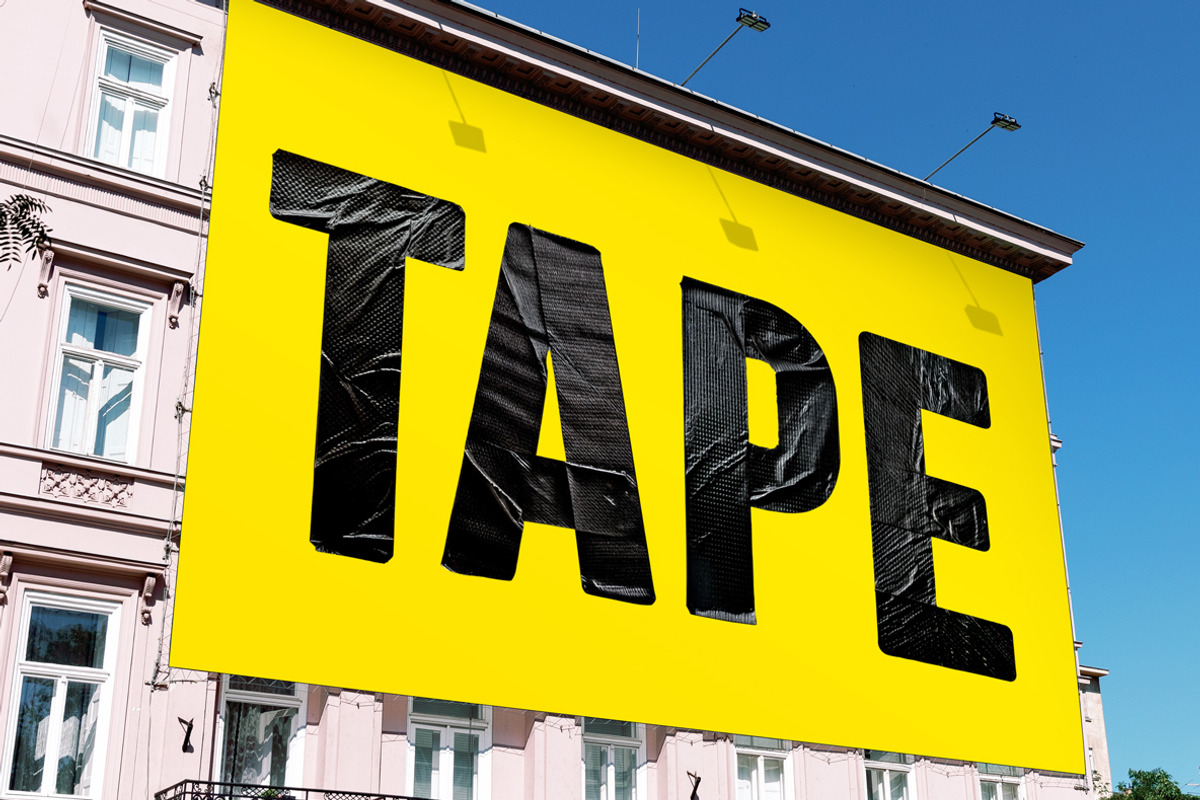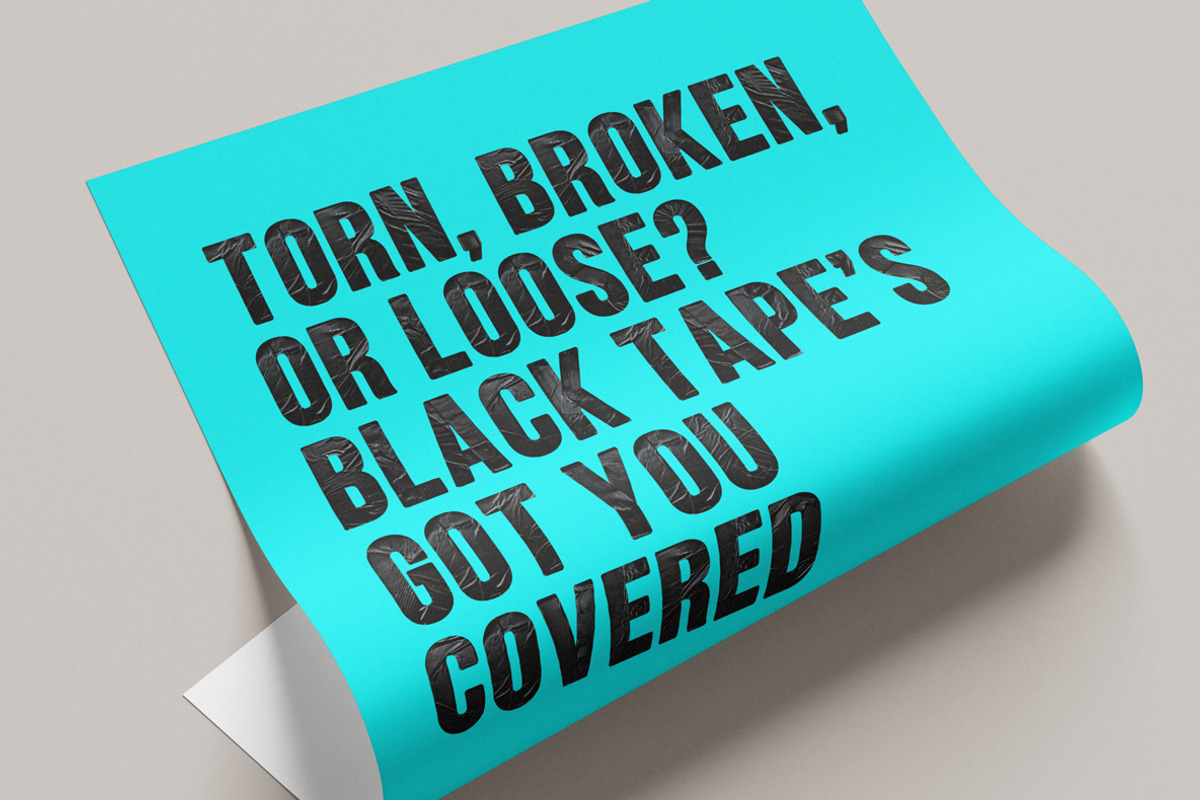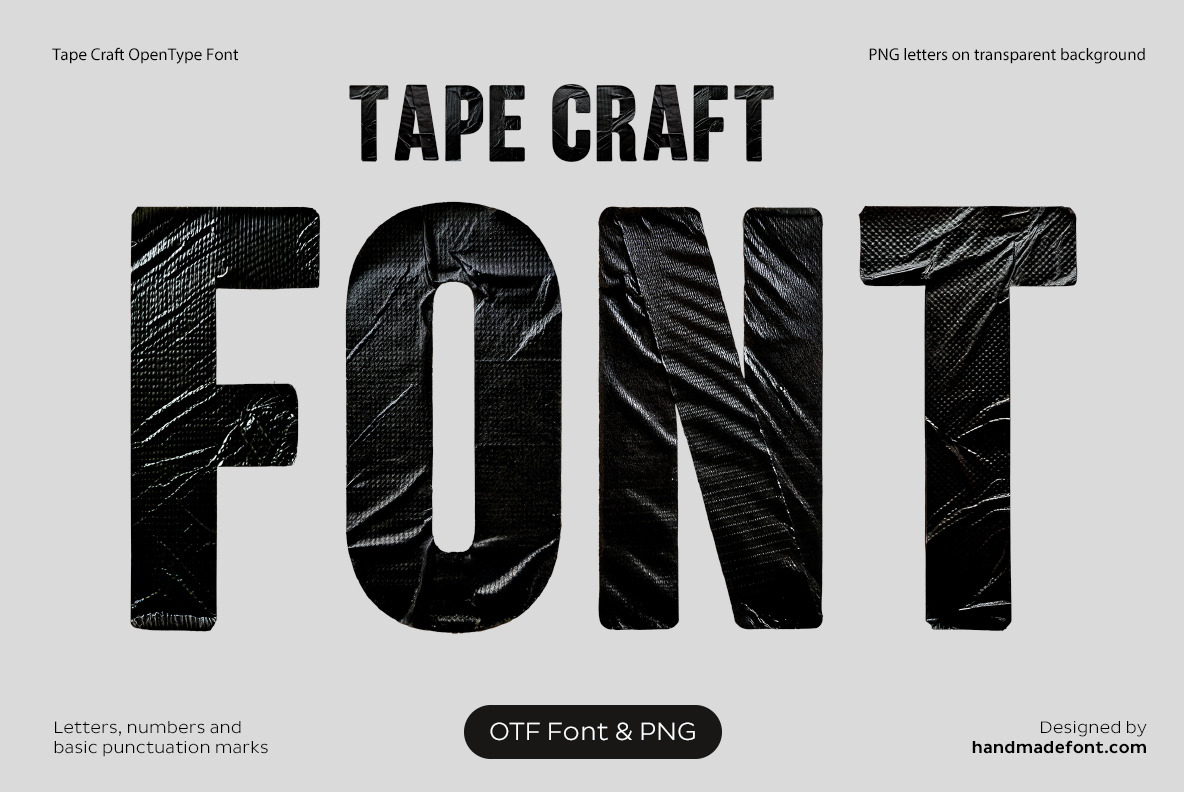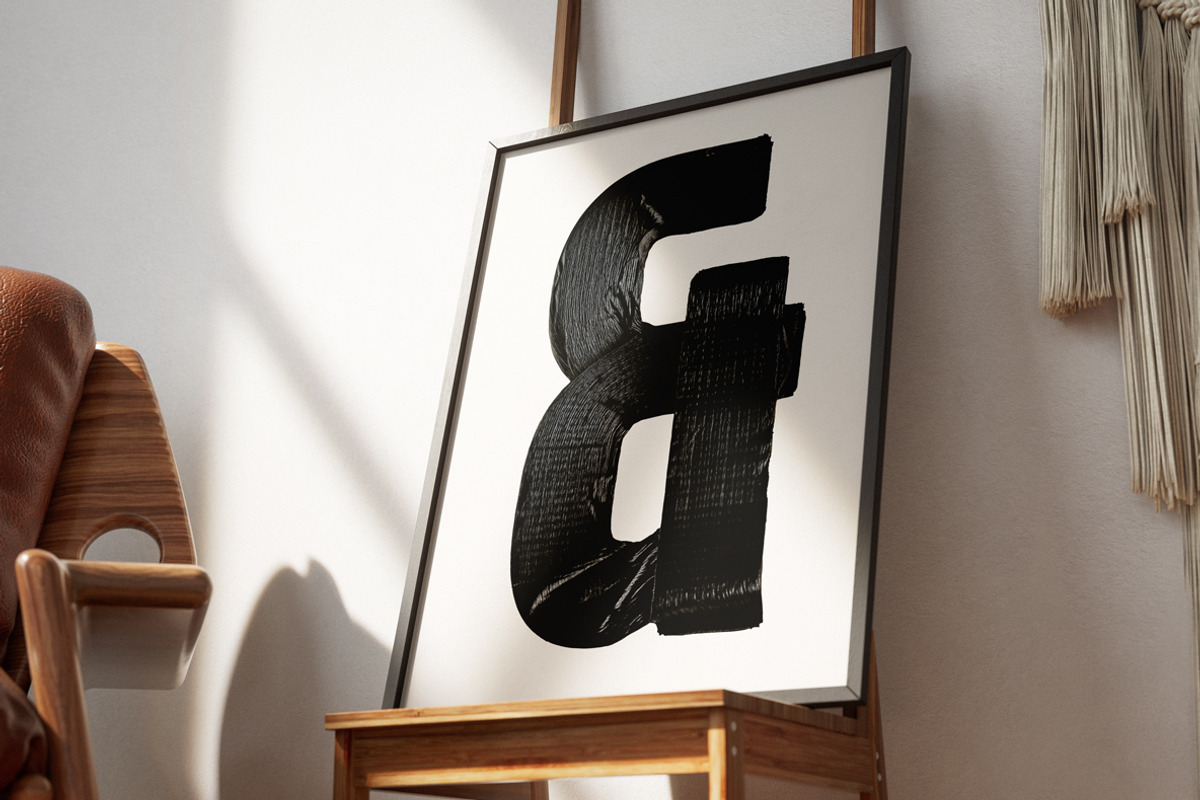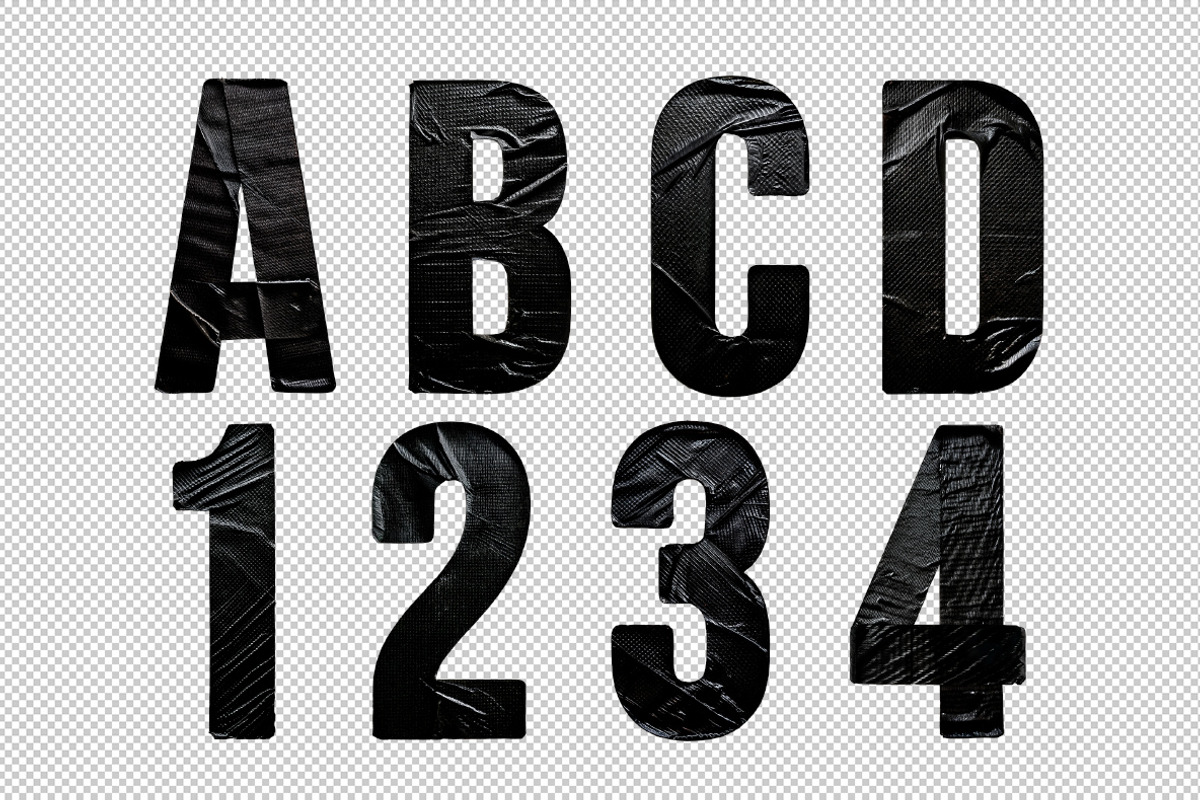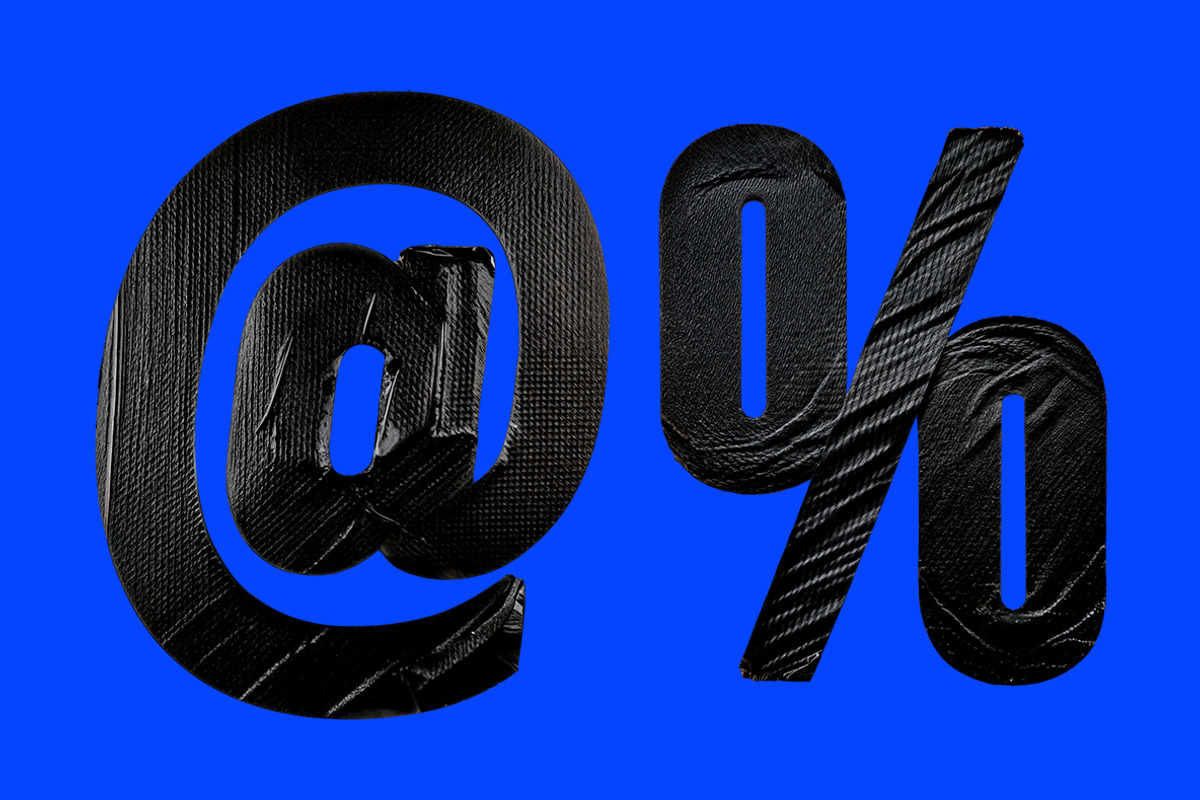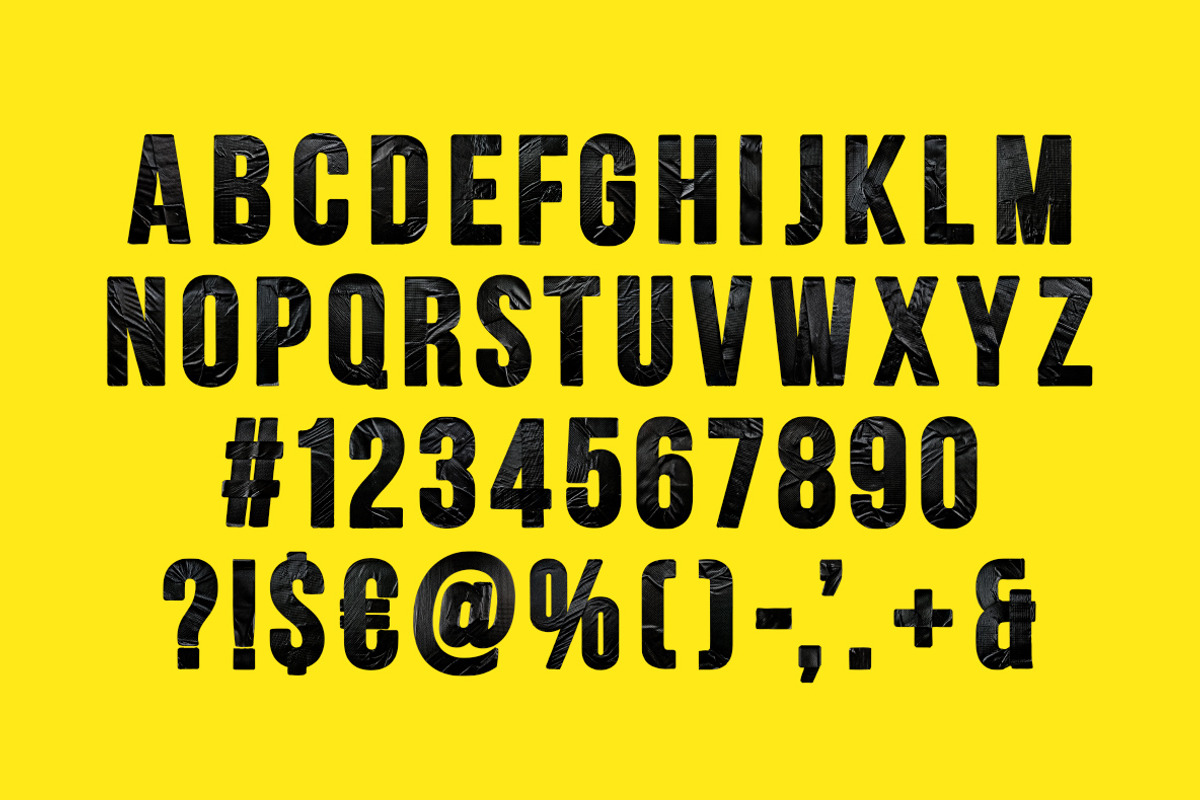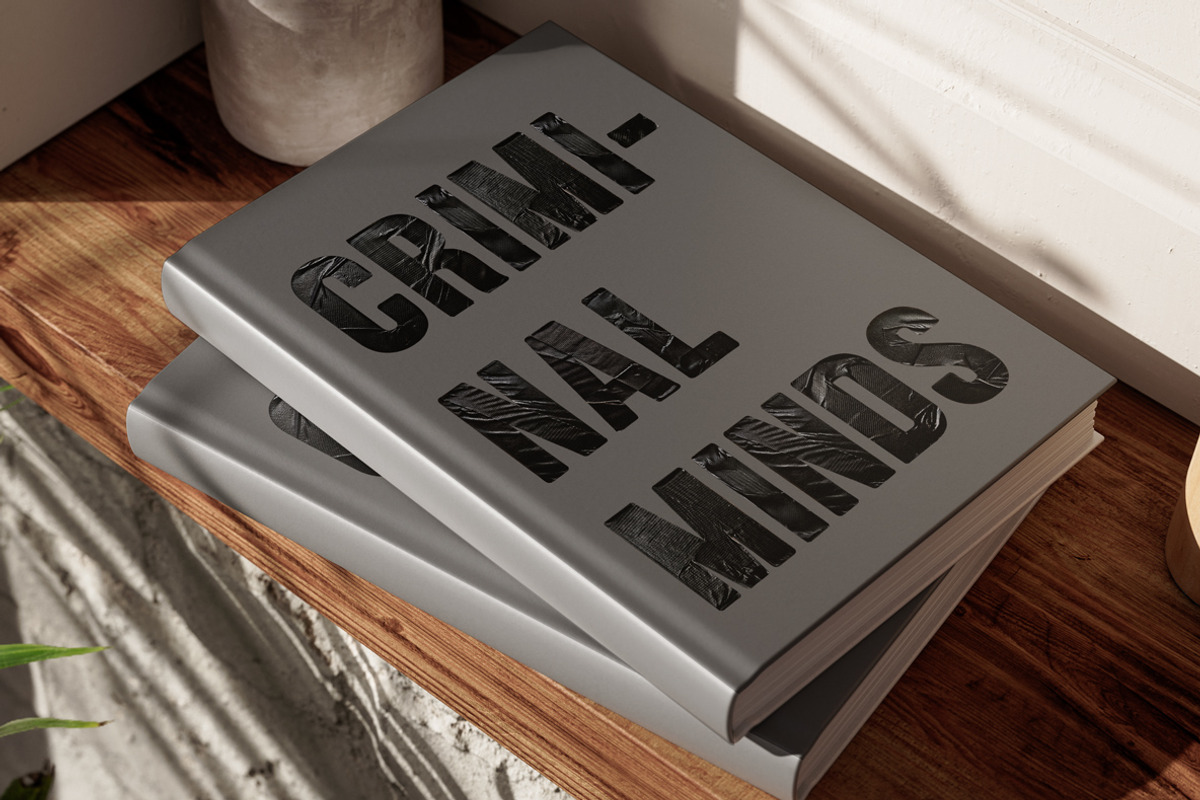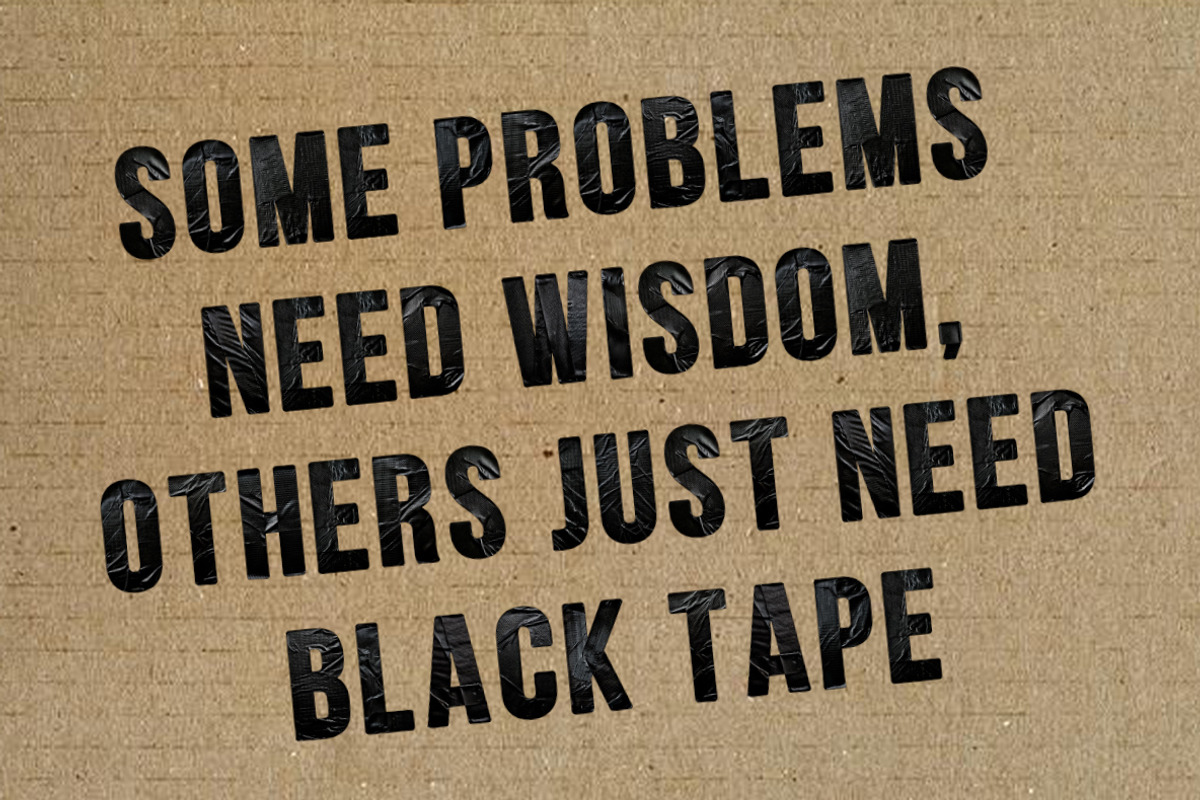
Tape Craft Font
Wrapping words in the bold embrace of black duct tape, Tape Craft Font sticks out—literally! This tape-inspired font looks like it was ripped straight from a DIY repair job gone stylish. Each letter is built from tough, waterproof tape, with creases, frayed edges, and rugged overlaps that scream industrial chic. Whether sealing an argument or patching up your design, this tape typography holds things together with strong, adhesive charm. It’s the rebellious love child of street art and hardware stores, proving that even tape lettering can make a statement—no scissors required. Stick with Tape Craft Font; it won’t let you down!